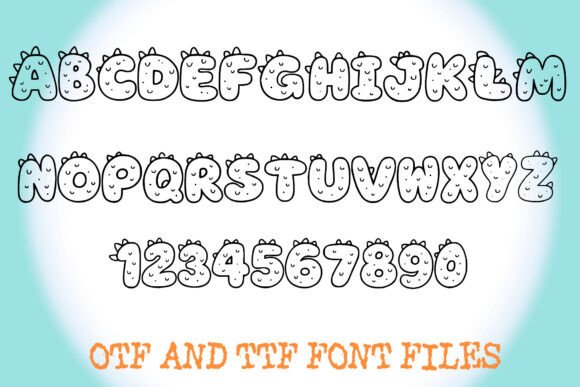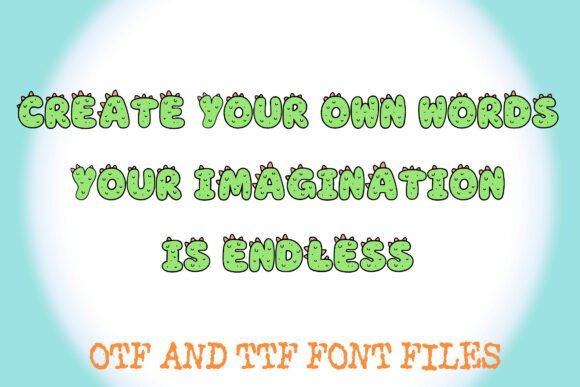
Dinosaur Font: Unleash the Prehistoric Cuteness in Your Designs!
Are you ready to take your designs back to the Jurassic era? Look no further than the Dinosaur Font, a bold and adorable display font that’s perfect for capturing kids’ attention in educational materials, birthday invitations, posters, and creative crafts. Inspired by cute cartoon dinos, this font is sure to bring a playful twist to any project!
What Makes Dinosaur Font So Special?
The Dinosaur Font is a one-of-a-kind typeface that’s designed to bring a smile to kids’ faces. Its chunky, rounded letters are decorated with spikes and textures, giving it a delightfully prehistoric feel. Whether you’re creating educational materials, birthday invitations, or posters, this font is sure to make your designs stand out from the crowd.
Perfect for Kids’ Projects
Kids love dinosaurs, and the Dinosaur Font is the perfect way to tap into that enthusiasm. This font is ideal for:
- Educational materials: Create engaging and interactive learning materials that kids will love. From alphabet charts to science worksheets, the Dinosaur Font is sure to make learning fun!
- Birthday invitations: Invite friends to a roaring good time with custom birthday invitations featuring the Dinosaur Font.
- Posters: Create eye-catching posters that showcase your favorite dinosaurs. Perfect for kids’ rooms, classrooms, or libraries.
- Crafts: Add a prehistoric touch to your craft projects, such as making dinosaur-themed cards, gift tags, or DIY decorations.
Design Possibilities are Endless!
The Dinosaur Font is incredibly versatile, making it perfect for a wide range of design projects. Here are some ideas to get you started:
- Create a dinosaur-themed party pack, complete with custom invitations, banners, and decorations.
- Design a set of dinosaur-themed stickers or stamps for kids to use in their craft projects.
- Make a dinosaur-themed alphabet chart or poster to hang in a classroom or kids’ room.
- Develop a custom dinosaur-themed craft kit, complete with font-based stickers, stamps, and coloring pages.
Why Choose Dinosaur Font?
So why choose the Dinosaur Font over other fonts? Here are just a few reasons:
- Unique and playful design: The Dinosaur Font is unlike any other font out there. Its chunky, rounded letters and prehistoric decorations make it a standout in any design.
- Perfect for kids’ projects: This font is specifically designed with kids in mind. It’s perfect for educational materials, birthday invitations, and craft projects.
- Easy to read: Despite its playful design, the Dinosaur Font is easy to read, making it perfect for use in a variety of design projects.
Get Creative with Dinosaur Font!
Ready to unleash your creativity with the Dinosaur Font? Here are some tips for getting the most out of this amazing font:
- Experiment with colors: The Dinosaur Font looks great in a variety of colors, from bright and bold to pastel and soft.
- Mix and match with other fonts: Try pairing the Dinosaur Font with other fonts to create a unique and eye-catching design.
- Add graphics and illustrations: The Dinosaur Font is perfect for use with dinosaur-themed graphics and illustrations.
The Dinosaur Font is a bold and adorable display font that’s perfect for designers and crafters who want to add a playful touch to their projects. With its chunky, rounded letters and prehistoric decorations, this font is sure to capture kids’ attention and bring a smile to their faces. So why wait? Download the Dinosaur Font today and start creating your own prehistoric masterpieces!